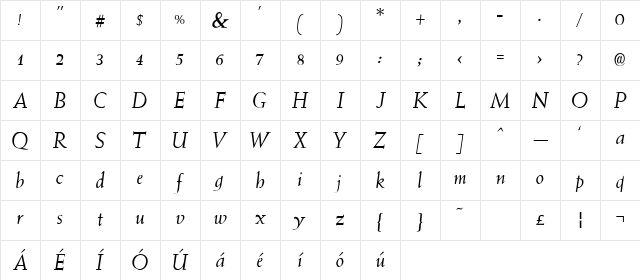
Yardstick Italic
Design Context for Yardstick
Yardstick is a composed and adaptable typeface that performs quietly and consistently across a wide range of design contexts. The slanted form adds forward momentum and visual energy.
Pro Tip: Use Yardstick for emphasis, pull quotes, and subheadings where its slanted energy can add rhythm to the layout.